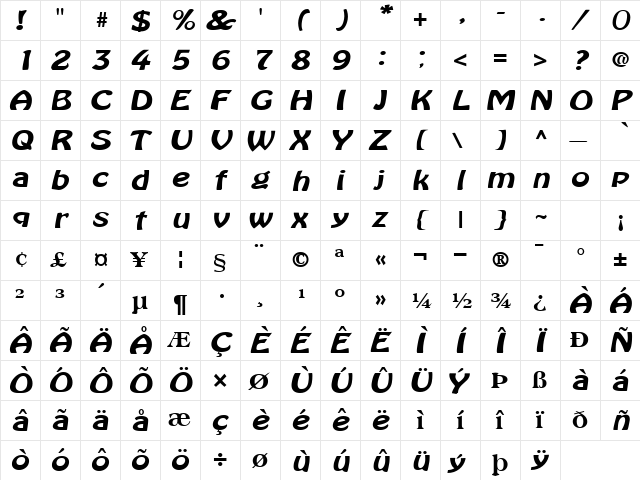
Batavia Regular
Design Context for Batavia Typeface
Batavia takes a measured approach to typography — its balanced proportions and neutral character make it a reliable workhorse for both digital and print work.